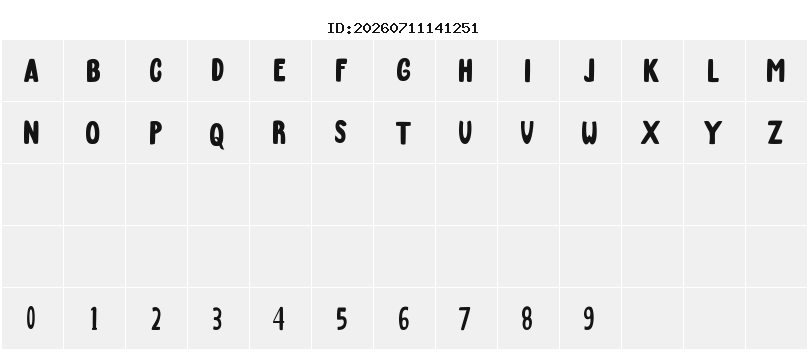
March Preview
• Font Name: March
• Full Font Name: March
• Designer: Rhega Juliandy
• Manufacturer: Rhega Juliandy
About March.ttf
March.ttf is a modern, elegant sans-serif font designed for ultimate readability and visual harmony. Perfect for branding, headlines, web design, and print materials.